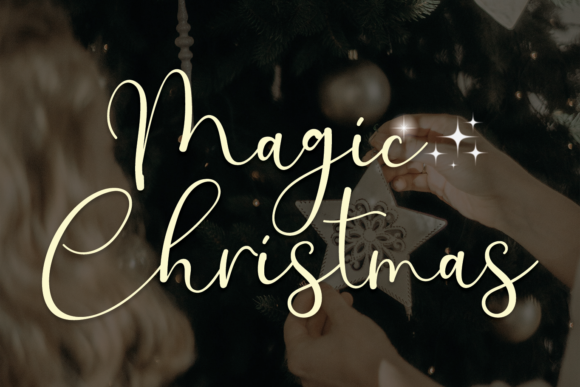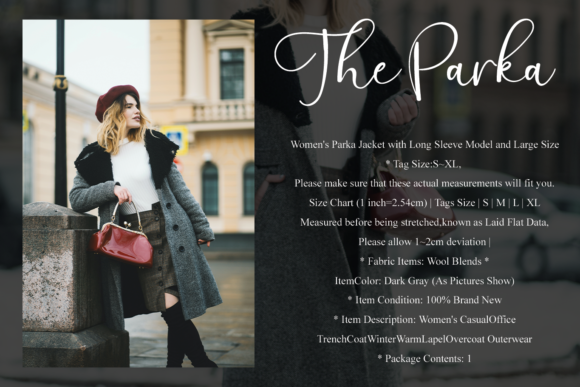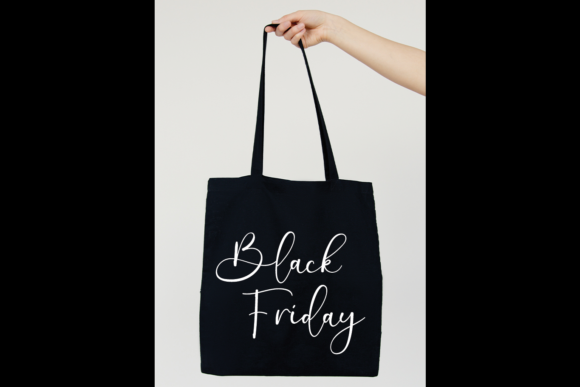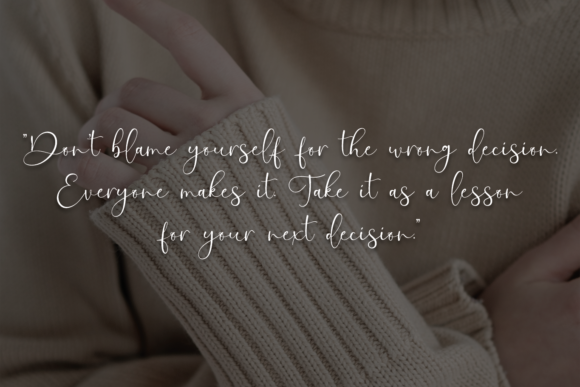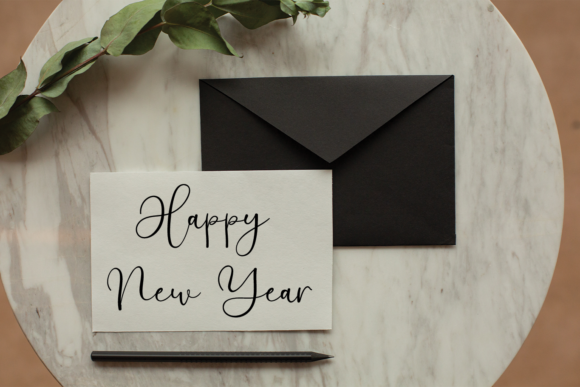
Magic Christmas Font
Magic Christmas is a romantic and sweet calligraphy typeface with characters that dance along the baseline. It will add a luxury spark to any design project that you wish to create!